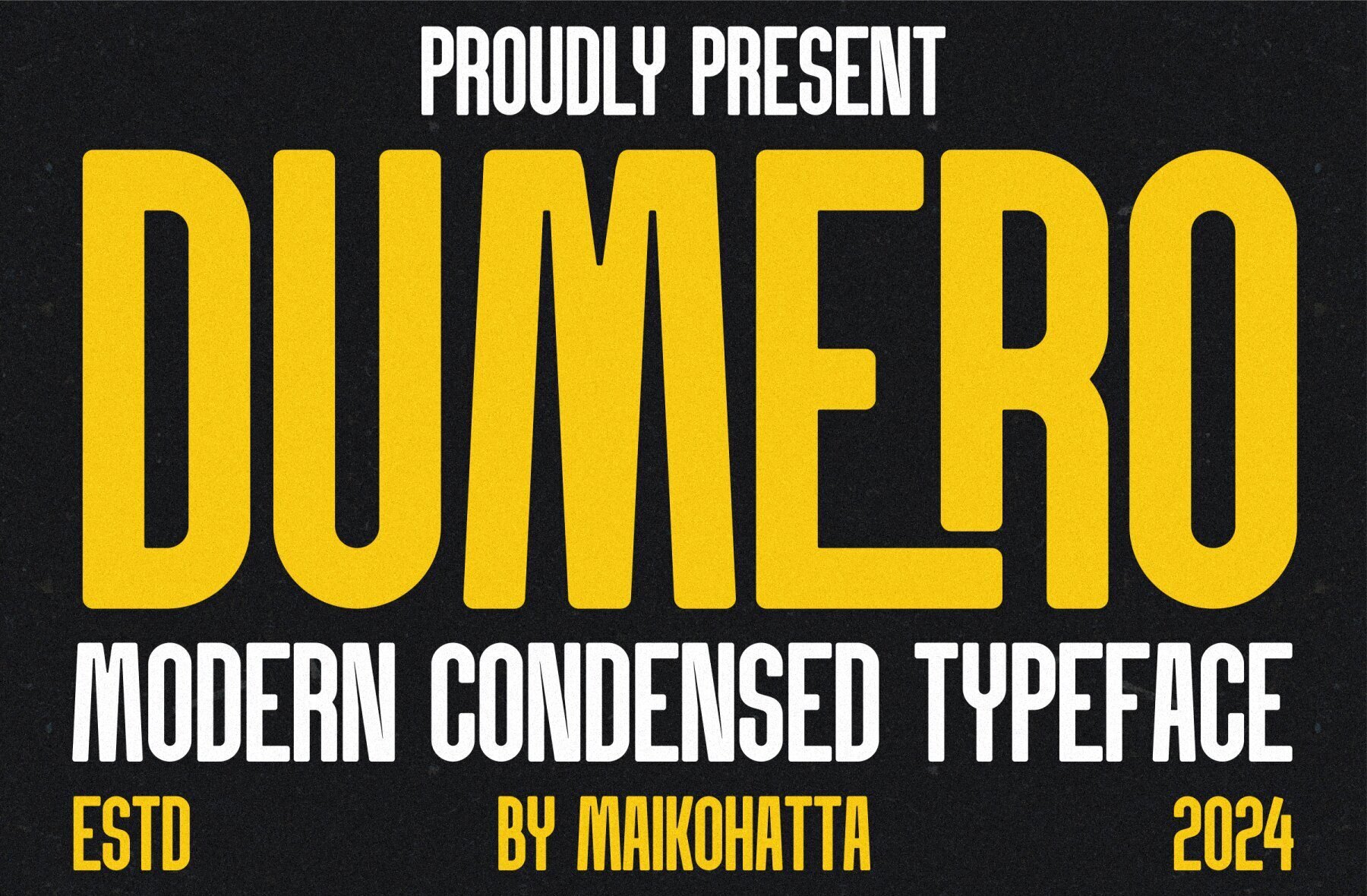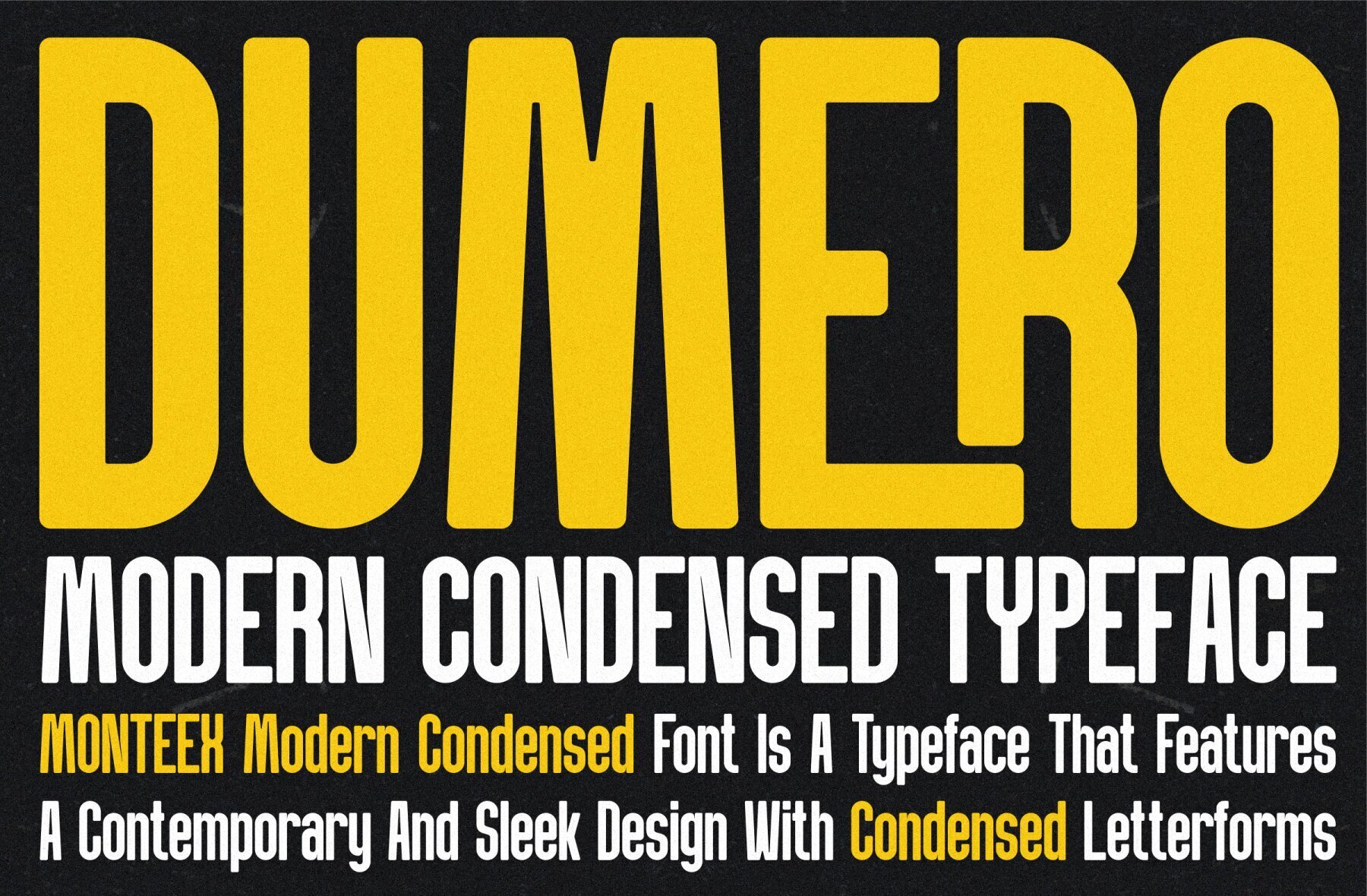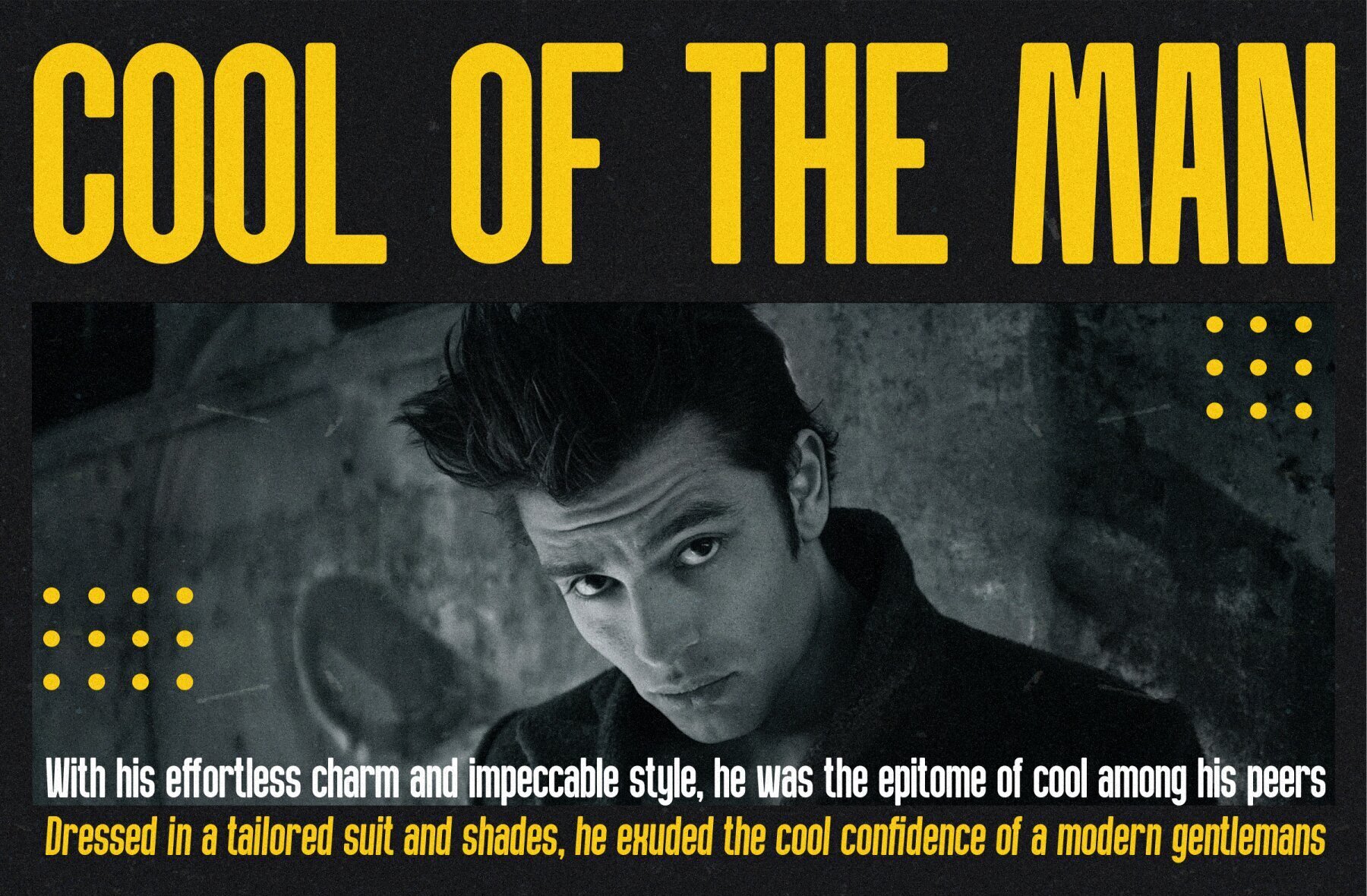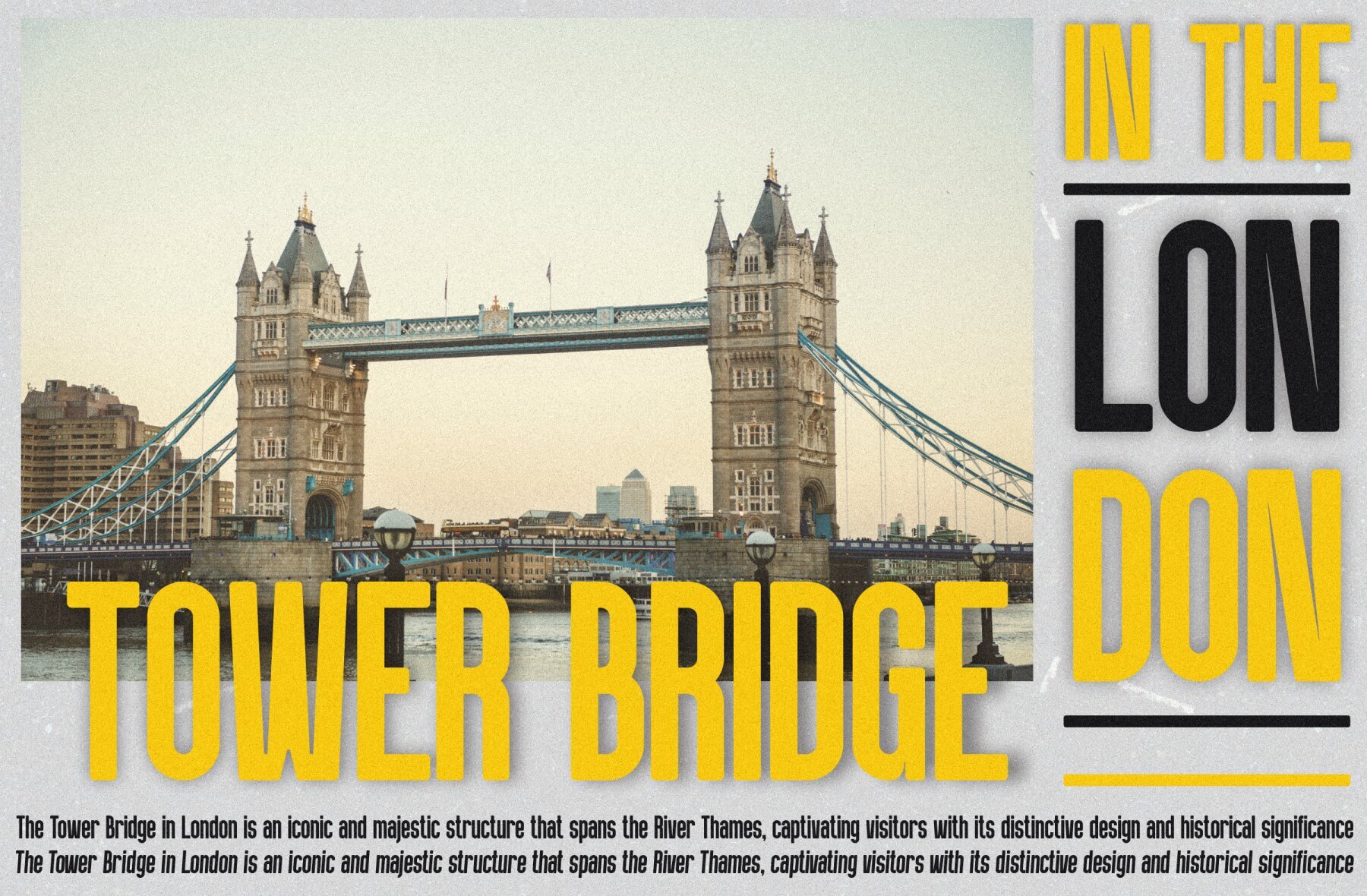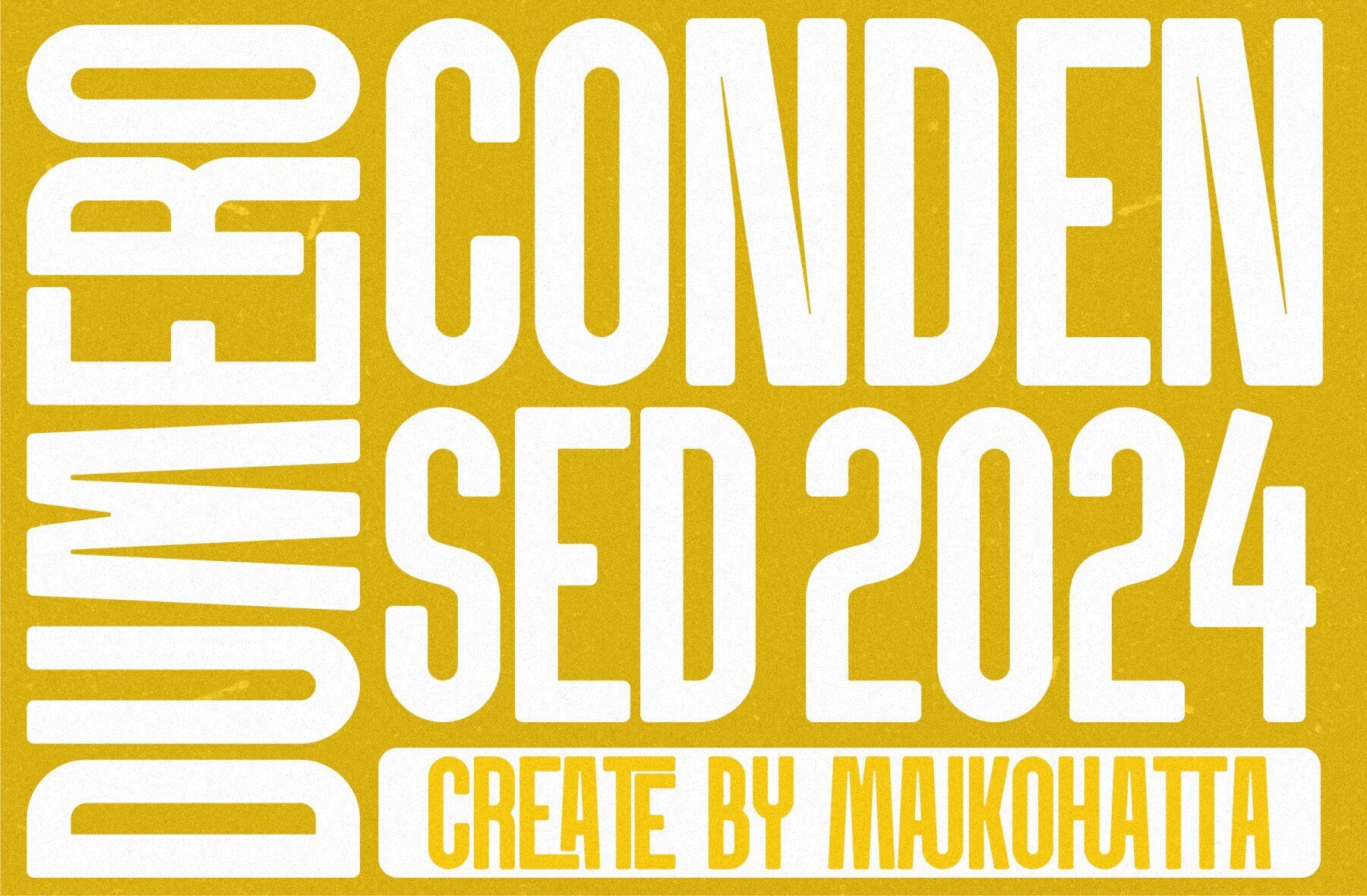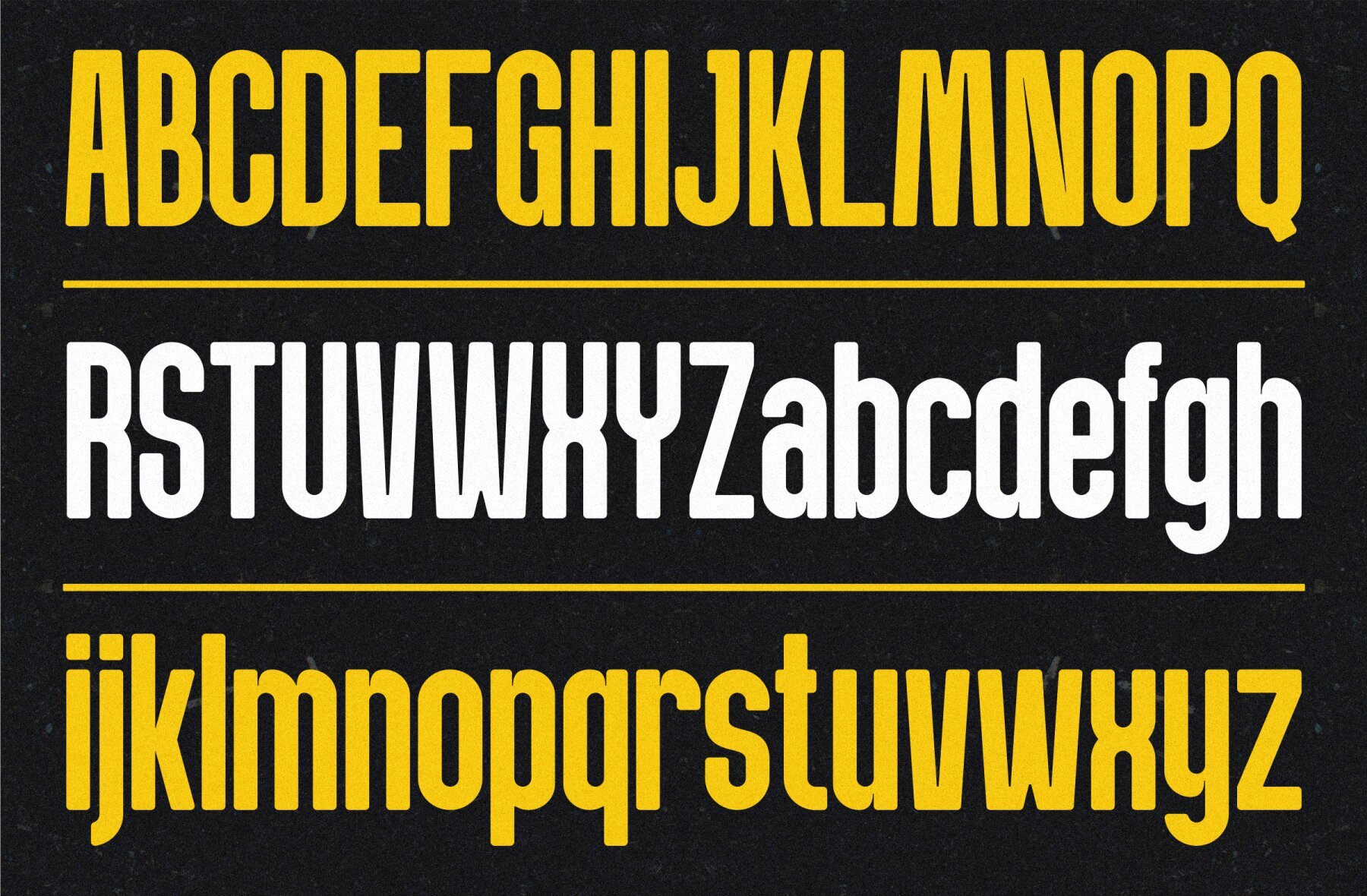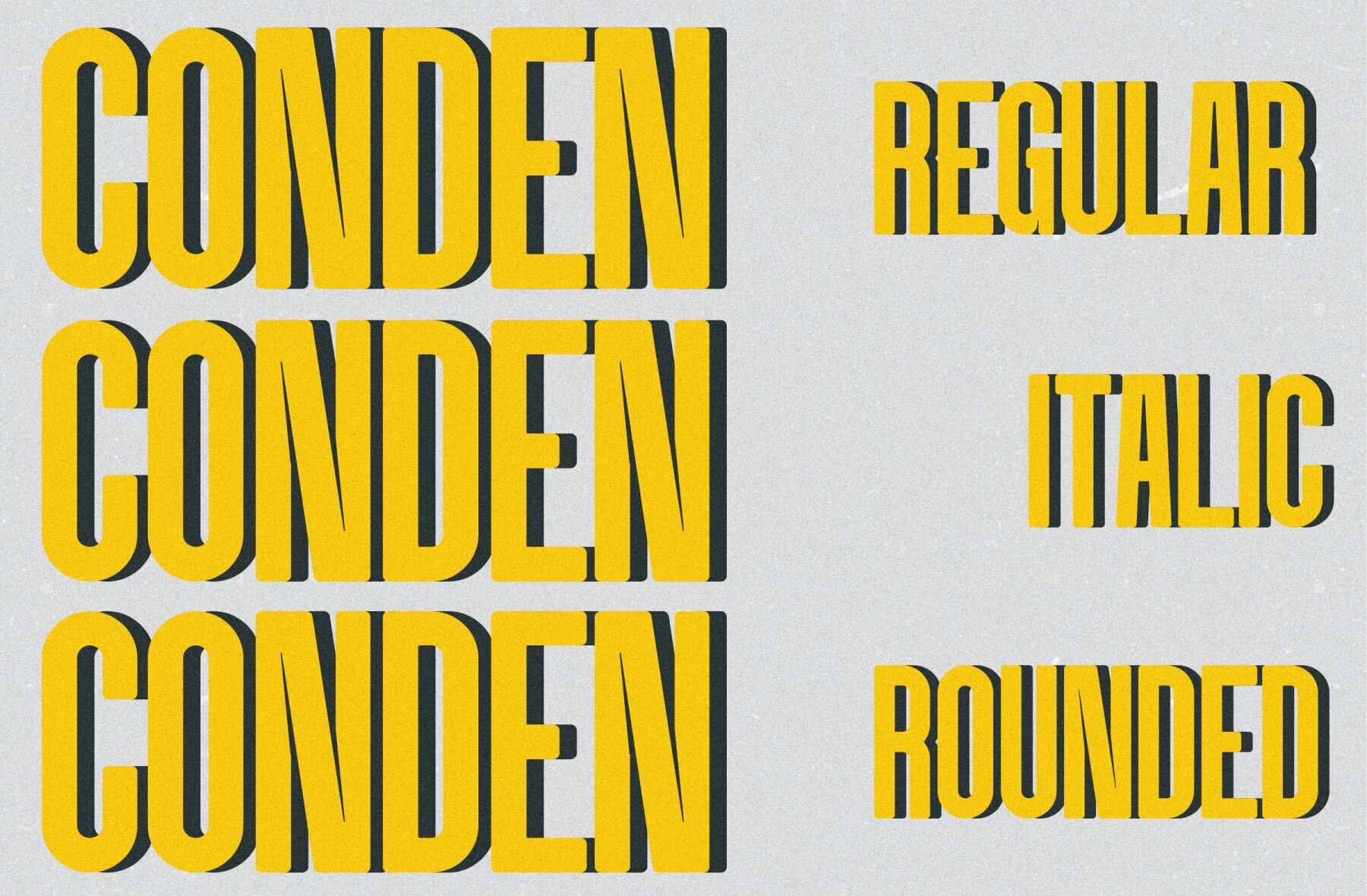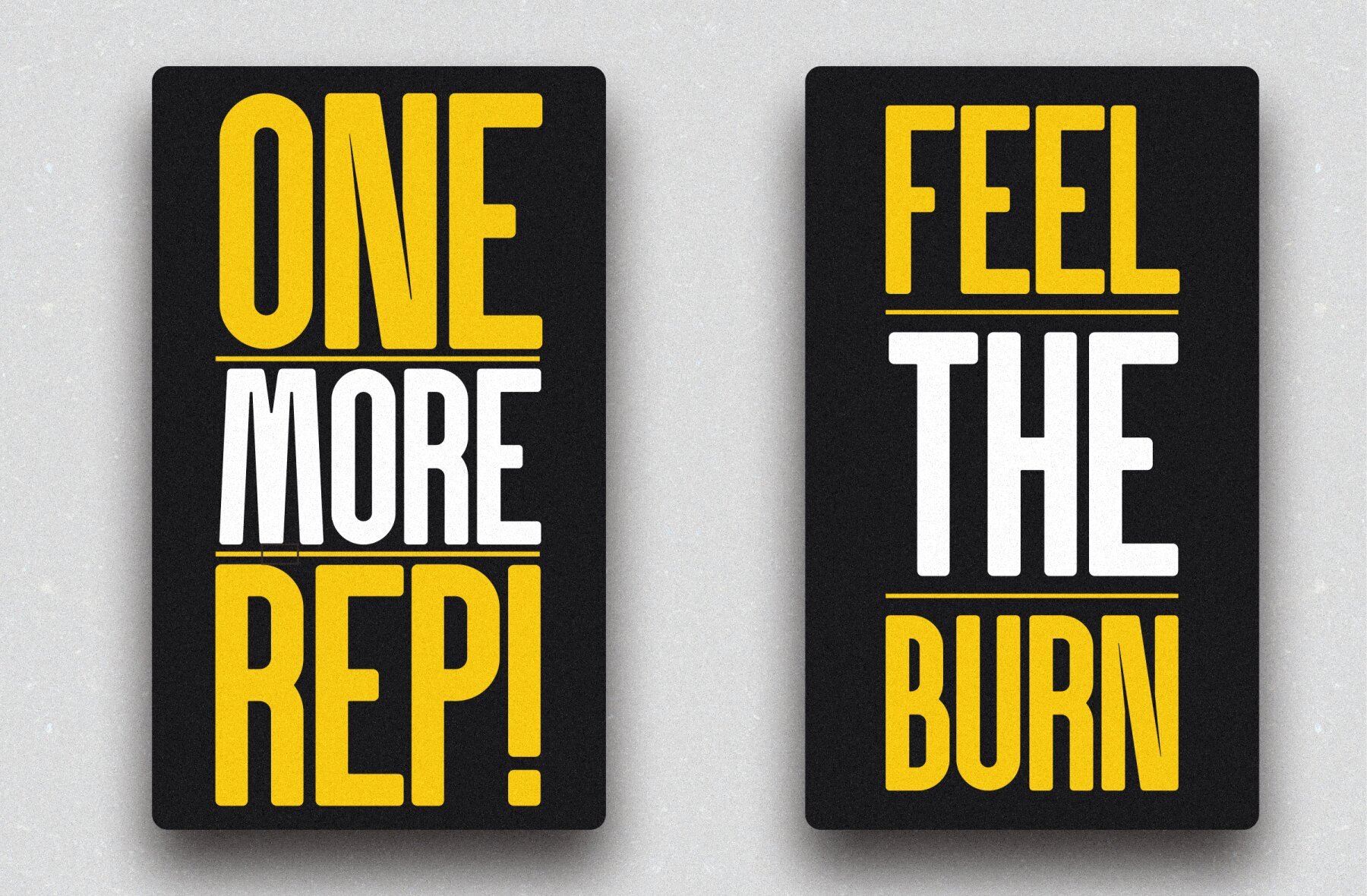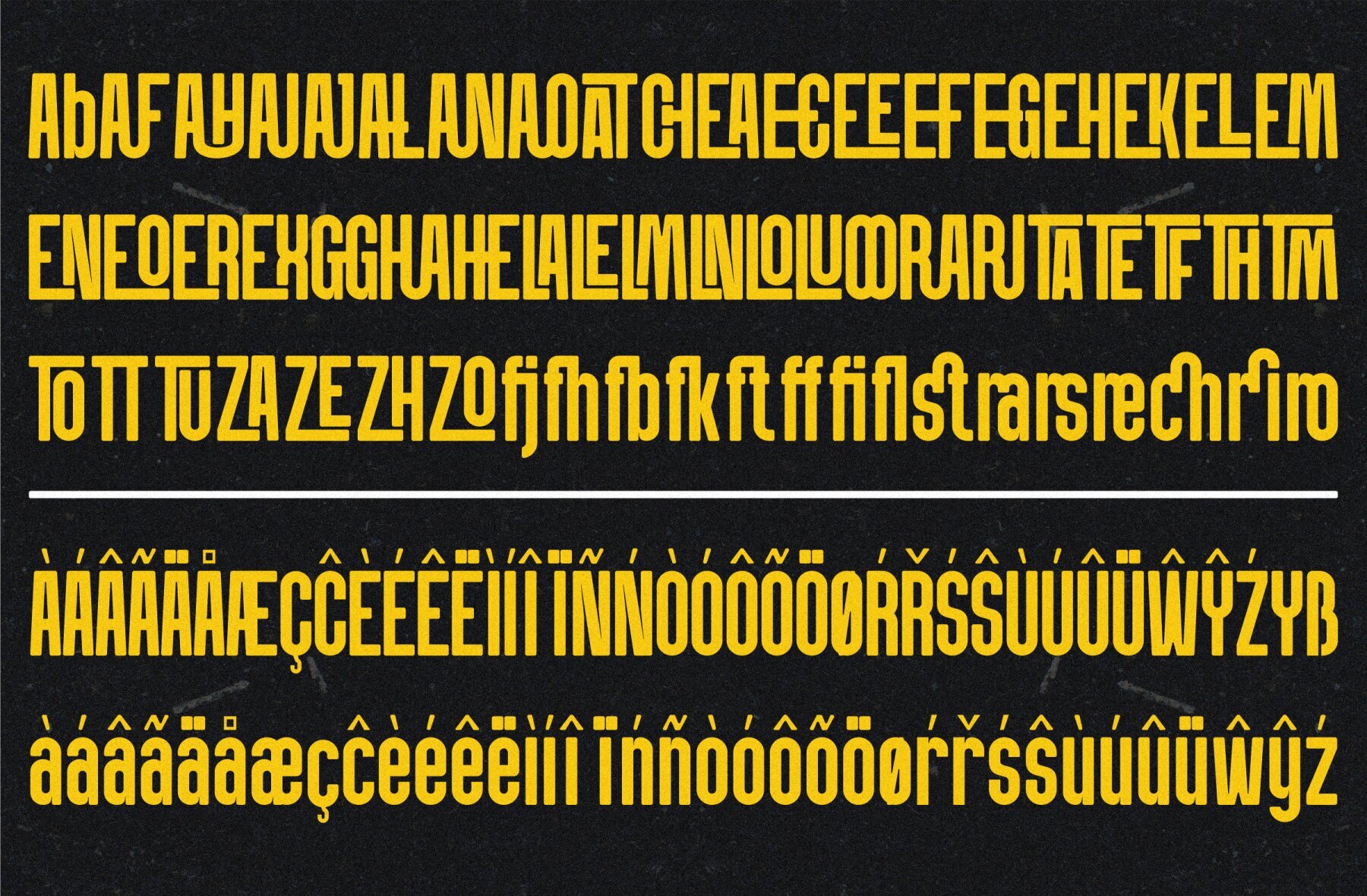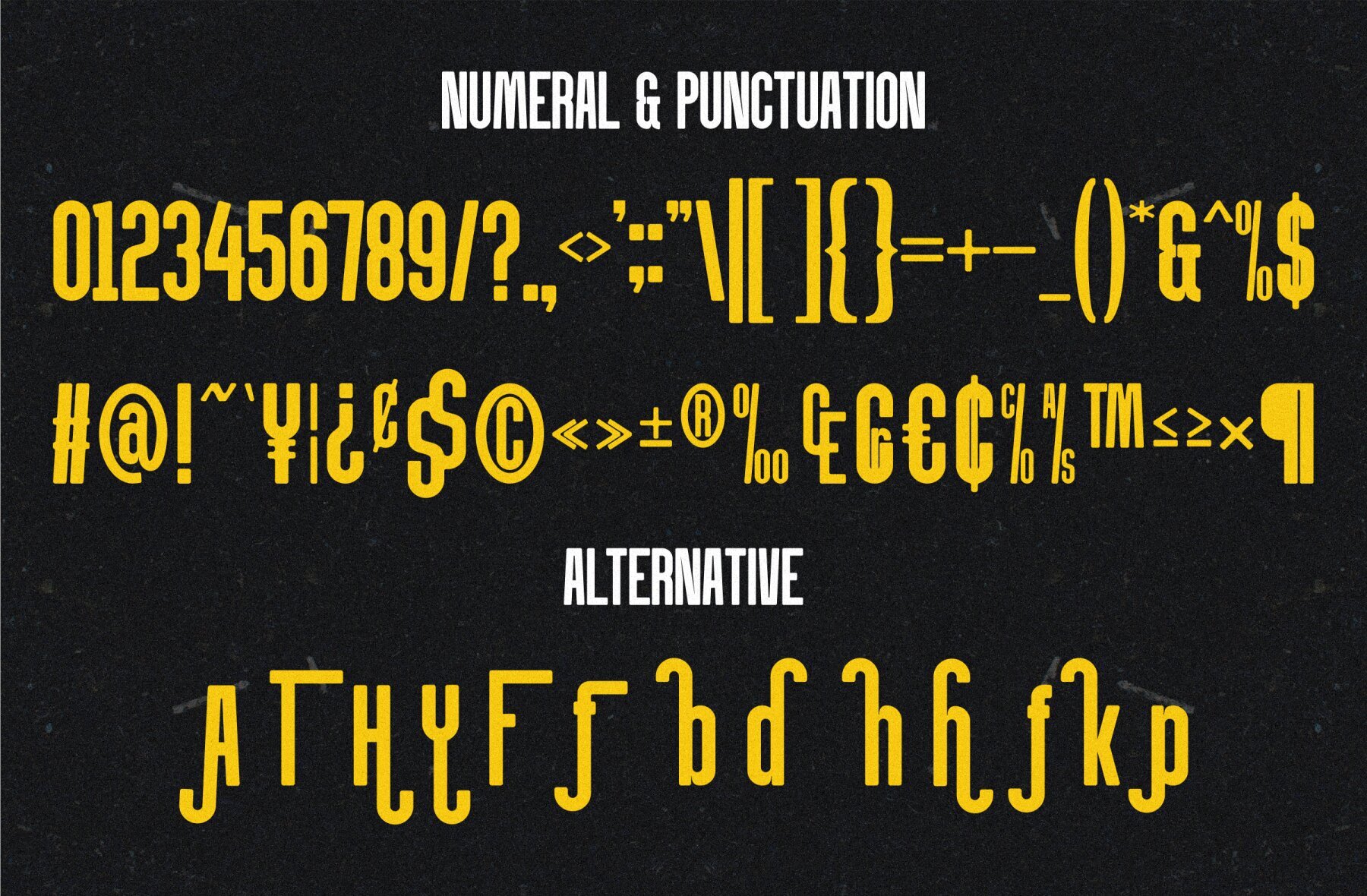
Dumero Font
Dumero offers a sleek and compact design, characterized by its narrower letterforms, making it ideal for diverse graphic designs, print materials, and other media. Its distinct structure provides unique advantages in your design projects.Dumero: A Modern Condensed Typeface